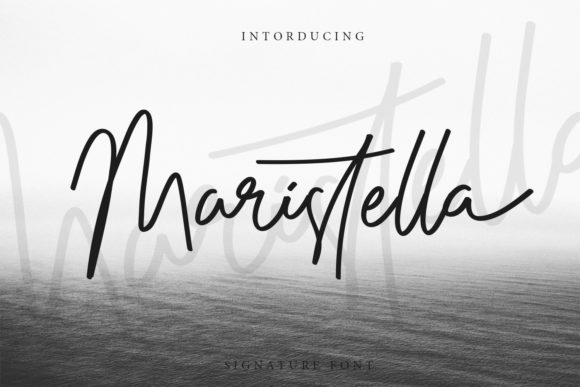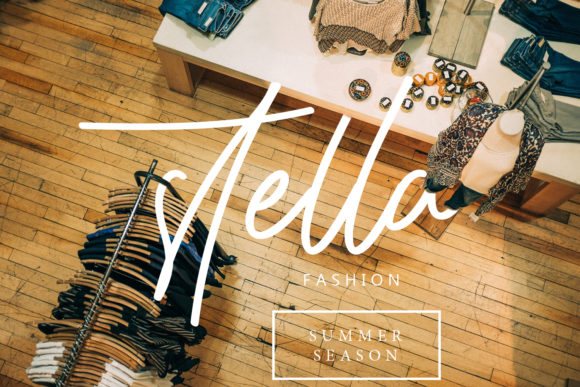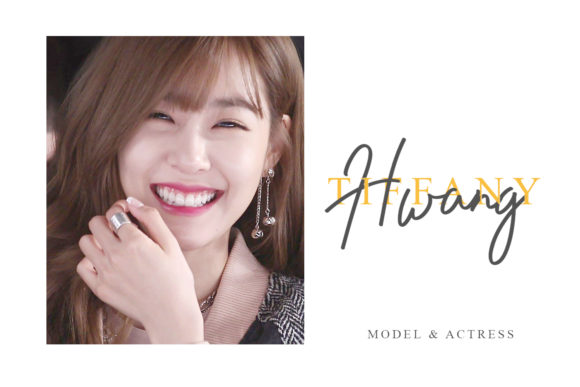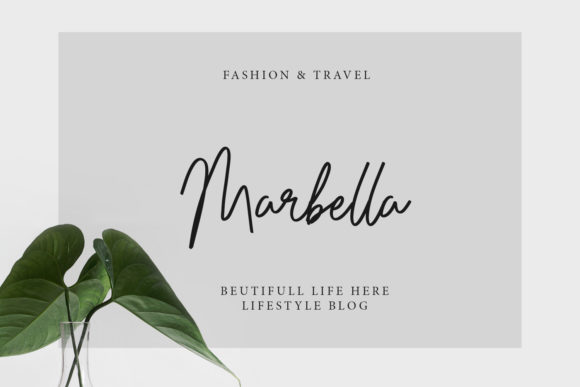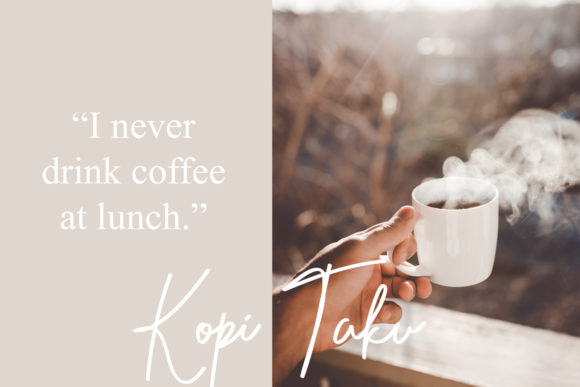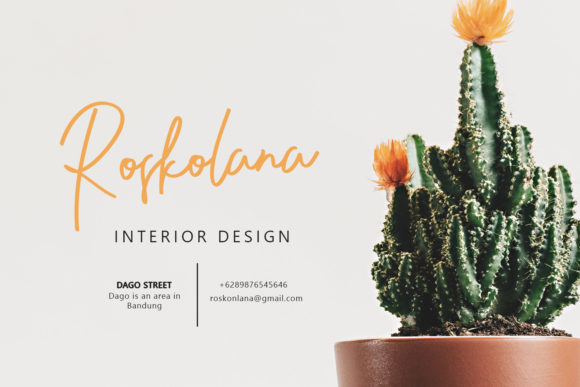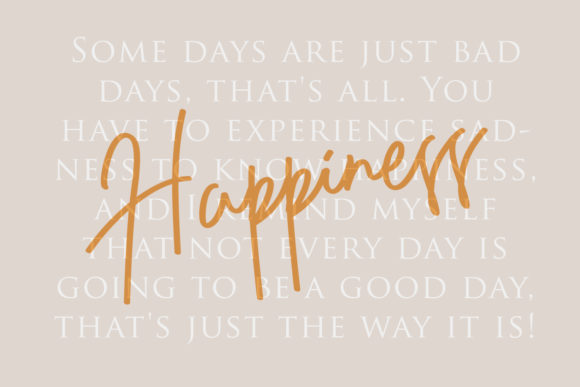
Maristella Font
About Maristella Font
Maristella is a unique and stylish script with an authentic look. Use it to add a personal touch to any design idea!